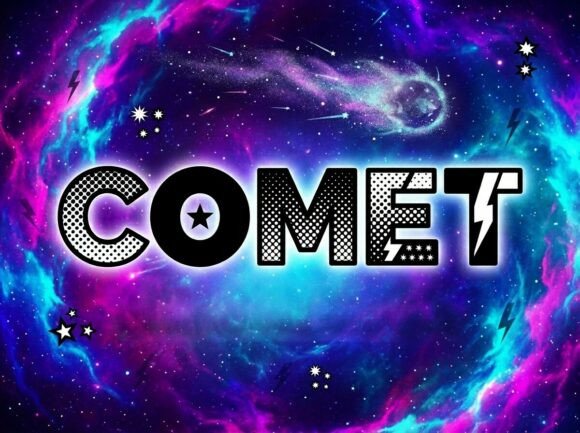
Introducing Comet Font: The Ultimate Display Font for High-Energy Designs
Are you looking for a font that can add a burst of energy to your designs? Look no further than Comet Font, a premium comic display font that’s engineered to make your text pop. With its ultra-bold uppercase letters and cosmic textures, Comet Font is the perfect choice for designers who want to create vibrant and eye-catching titles that explode off the page.
A Font that’s Out of this World
Comet Font breaks away from the traditional flat graphic structures of other fonts, adding a unique texture to each letter envelope with individual cosmic signatures. The characters are dynamically sliced with halftone retro comic dot arrays, celestial star matrices, and stylized energy lightning bolts that charge directly through the solid block bodies. This creates a truly 3D effect that’s sure to grab attention.
Perfect for Retro and Sci-Fi Designs
Comet Font is the perfect choice for designers who want to create retro arcade game branding, kid-centric comic book titles, superhero streaming channel overlays, custom vinyl merchandise decals, and energetic sci-fi poster headers. The font’s cosmic textures and bold letters evoke a sense of nostalgia and energy, making it ideal for designs that need to stand out.
Key Features of Comet Font
- Ultra-bold uppercase letters: Comet Font features bold and chunky letters that are perfect for creating eye-catching titles.
- Cosmic textures: Each letter envelope has a unique texture with individual cosmic signatures, adding a touch of personality to your designs.
- Halftone retro comic dot arrays: The characters are dynamically sliced with halftone retro comic dot arrays, creating a retro and nostalgic feel.
- Celestial star matrices: The font features celestial star matrices that add a touch of magic to your designs.
- Stylized energy lightning bolts: The font’s stylized energy lightning bolts charge directly through the solid block bodies, adding a sense of energy and movement.
- Retro arcade game branding: Use Comet Font to create bold and eye-catching titles for your retro arcade game branding.
- Kid-centric comic book titles: Comet Font is perfect for creating fun and energetic titles for kid-centric comic books.
- Superhero streaming channel overlays: Use Comet Font to create bold and dynamic overlays for superhero streaming channels.
- Custom vinyl merchandise decals: Comet Font is a great choice for creating custom vinyl merchandise decals that are sure to stand out.
- Energetic sci-fi poster headers: Use Comet Font to create bold and eye-catching headers for your energetic sci-fi posters.
Comet Font is a premium comic display font that’s engineered to make your text pop. With its ultra-bold uppercase letters and cosmic textures, it’s the perfect choice for designers who want to create vibrant and eye-catching titles. Whether you’re creating retro arcade game branding, kid-centric comic book titles, or superhero streaming channel overlays, Comet Font is the perfect choice. So why wait? Launch your text into a vibrant, high-energy galaxy with Comet Font today!